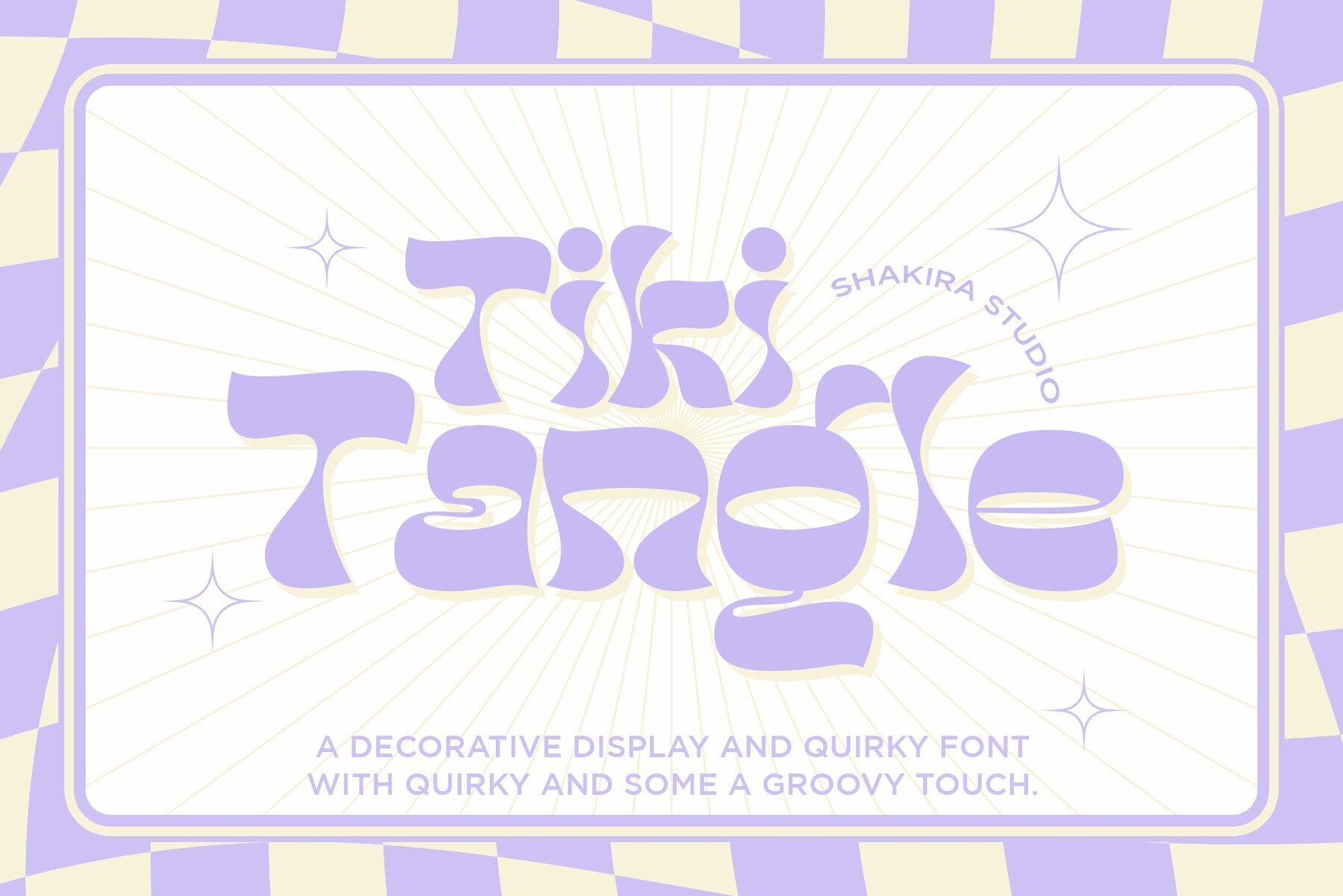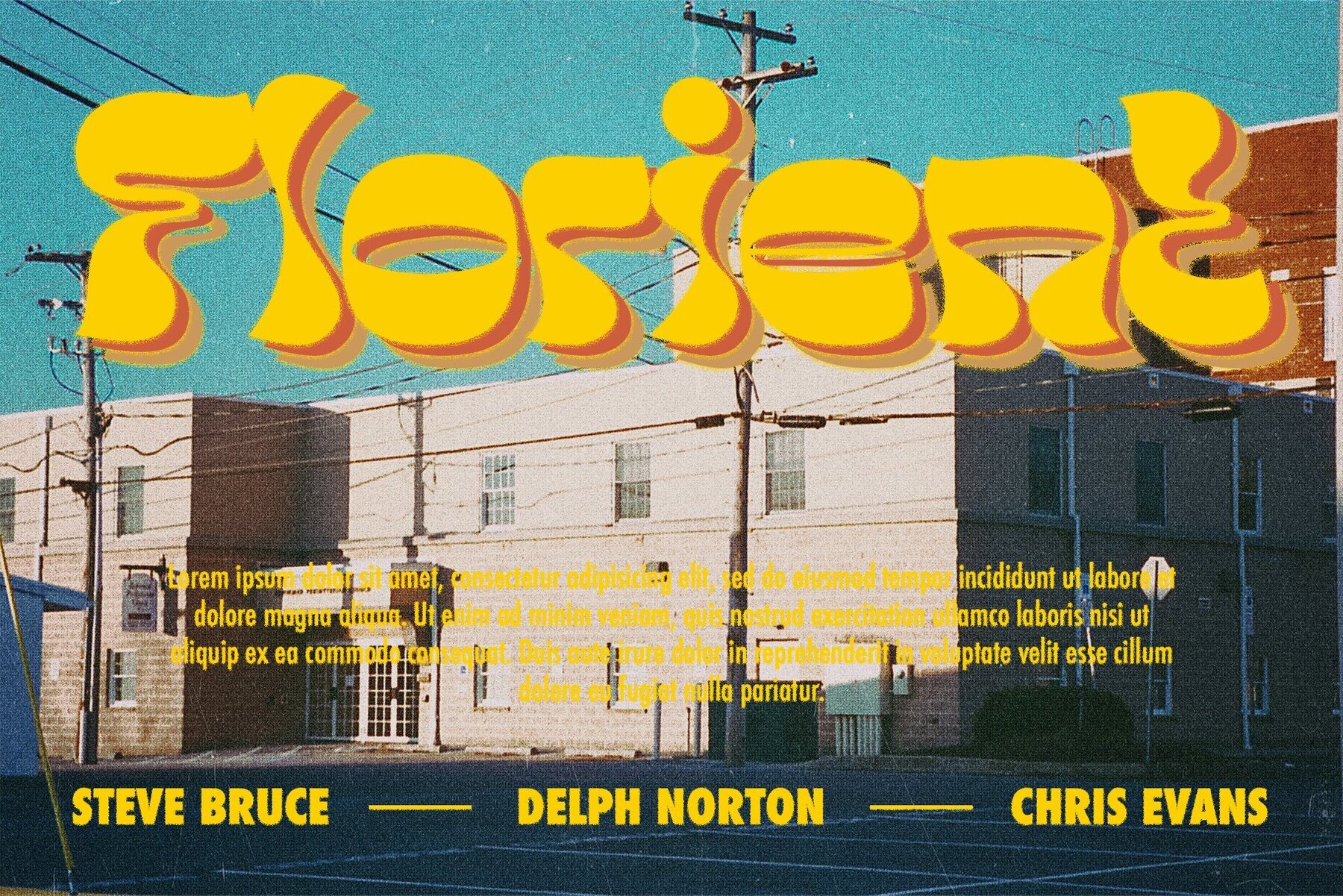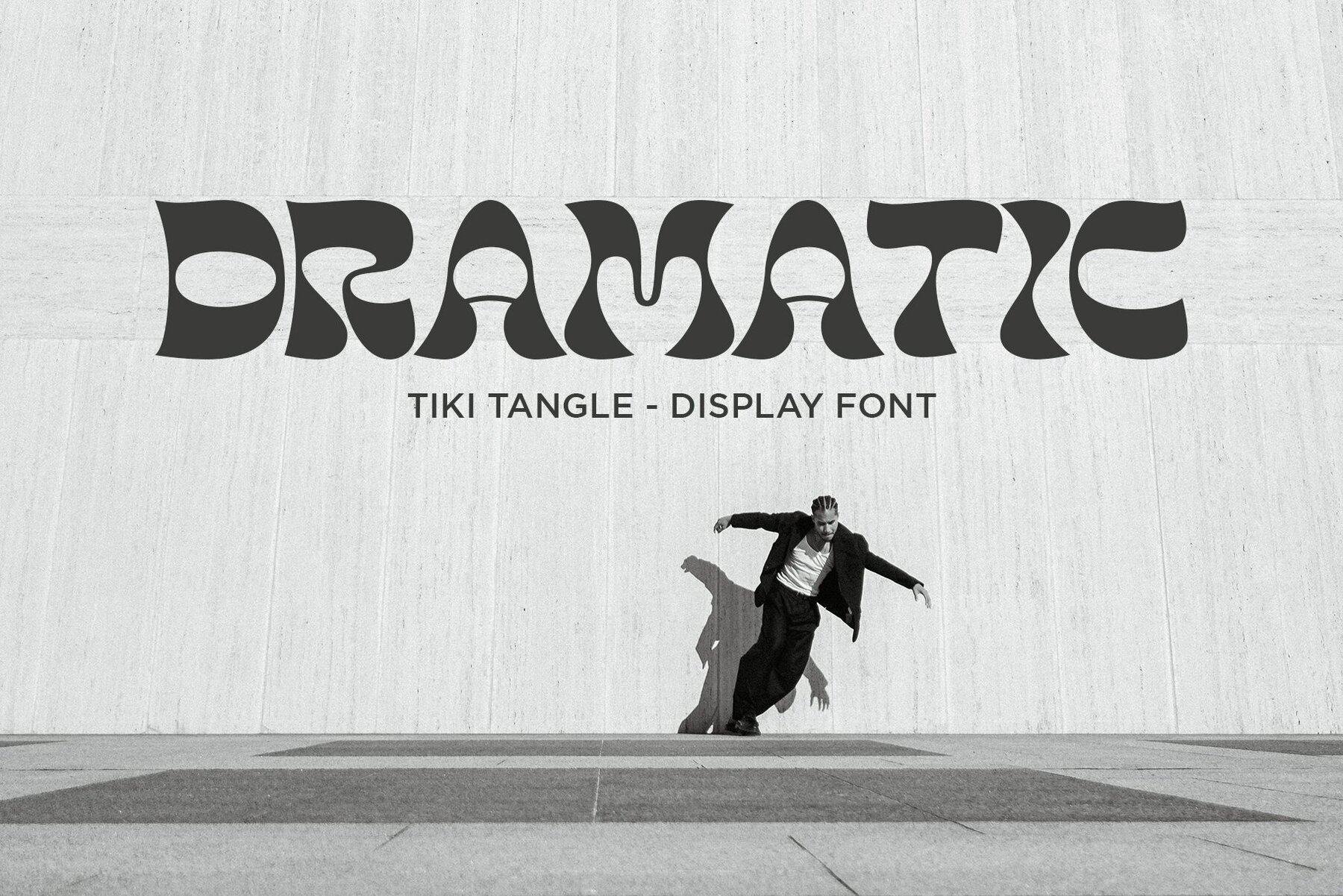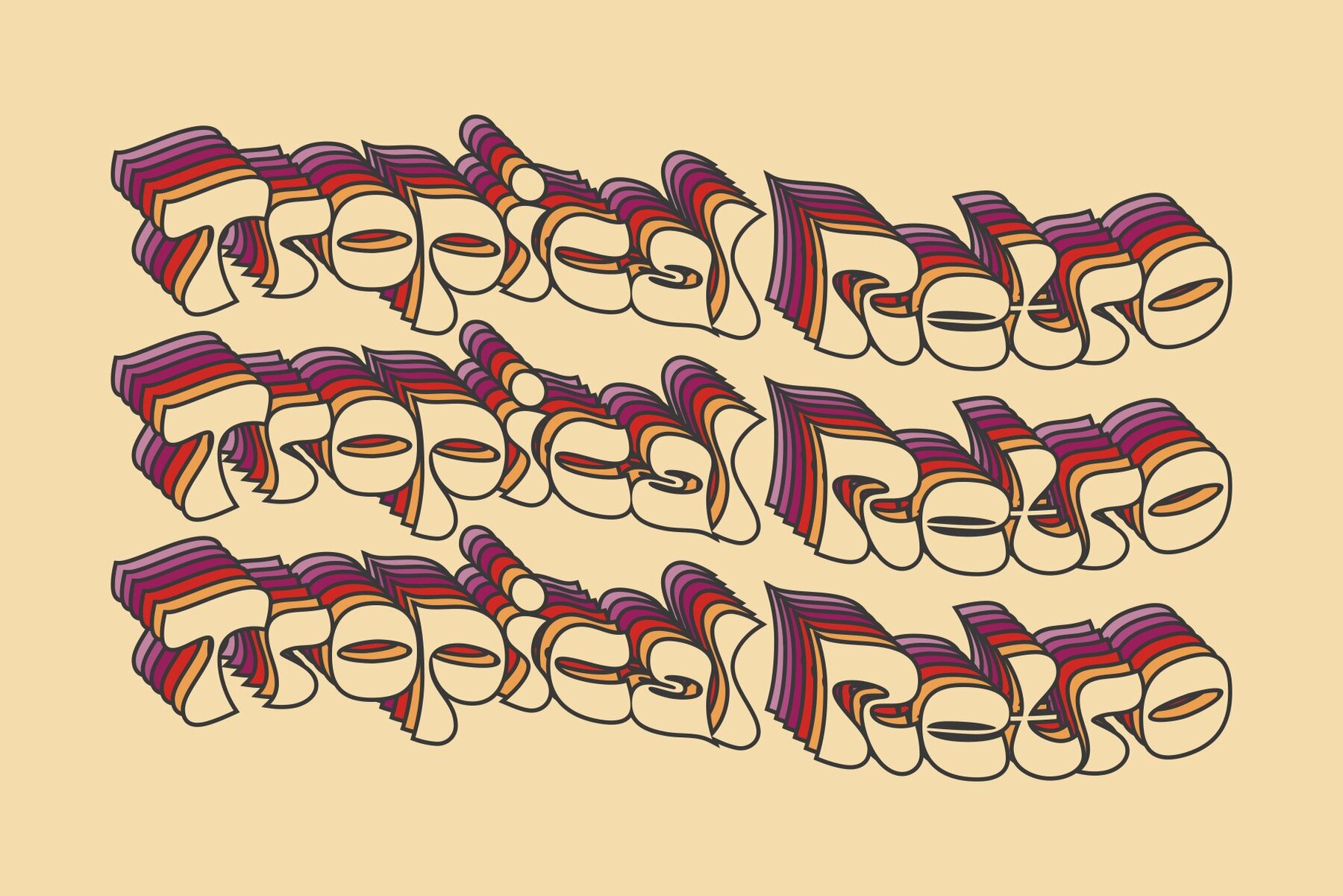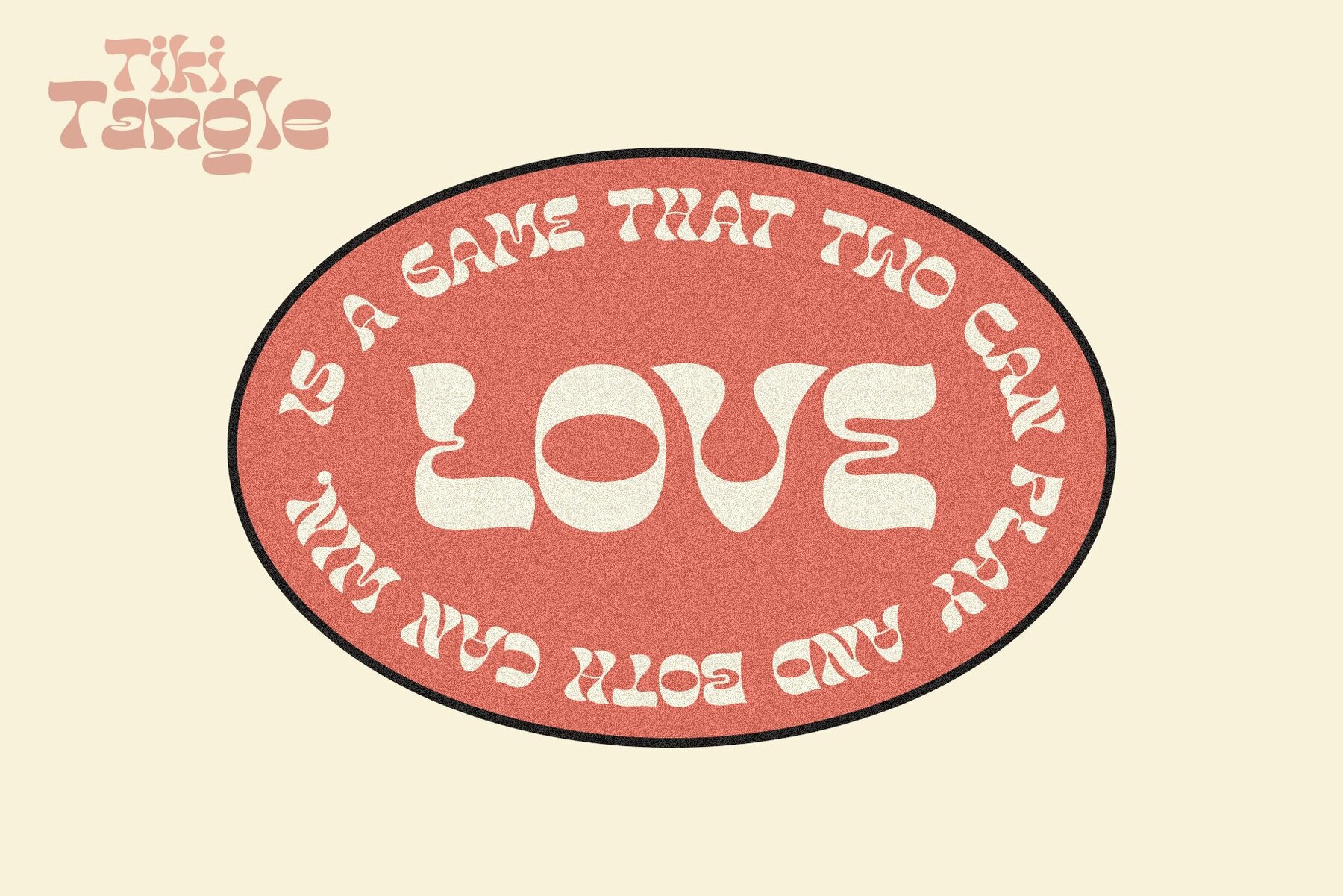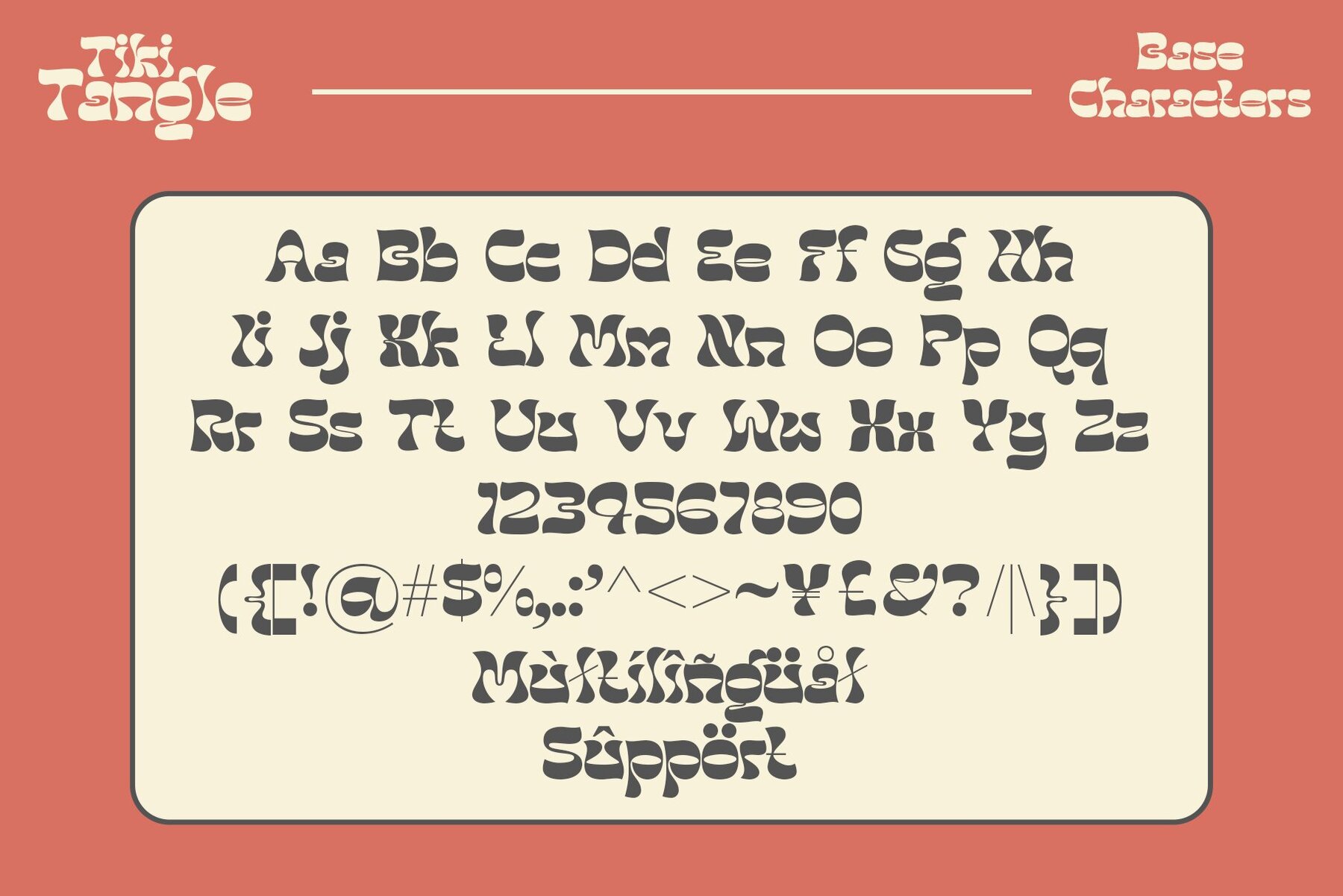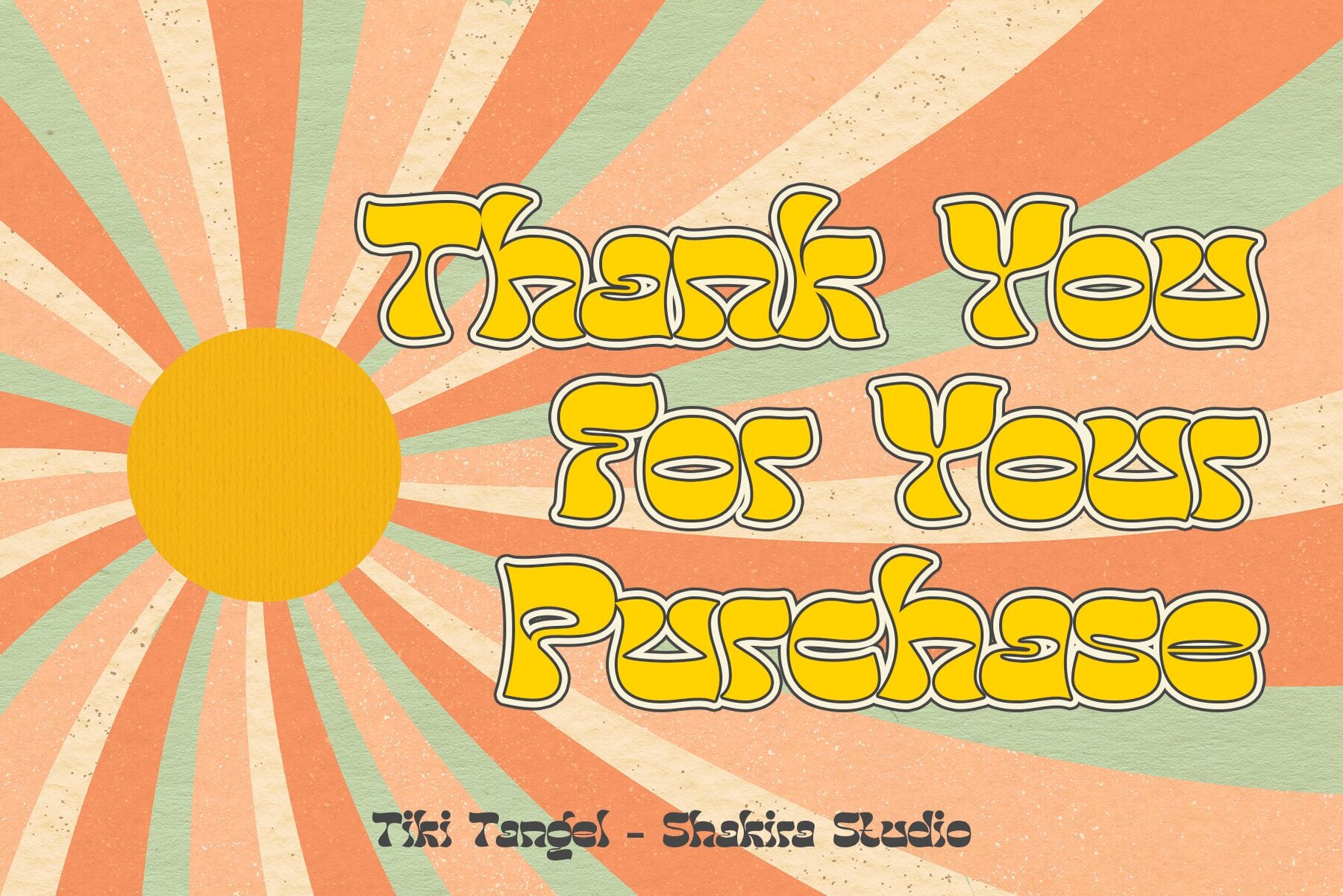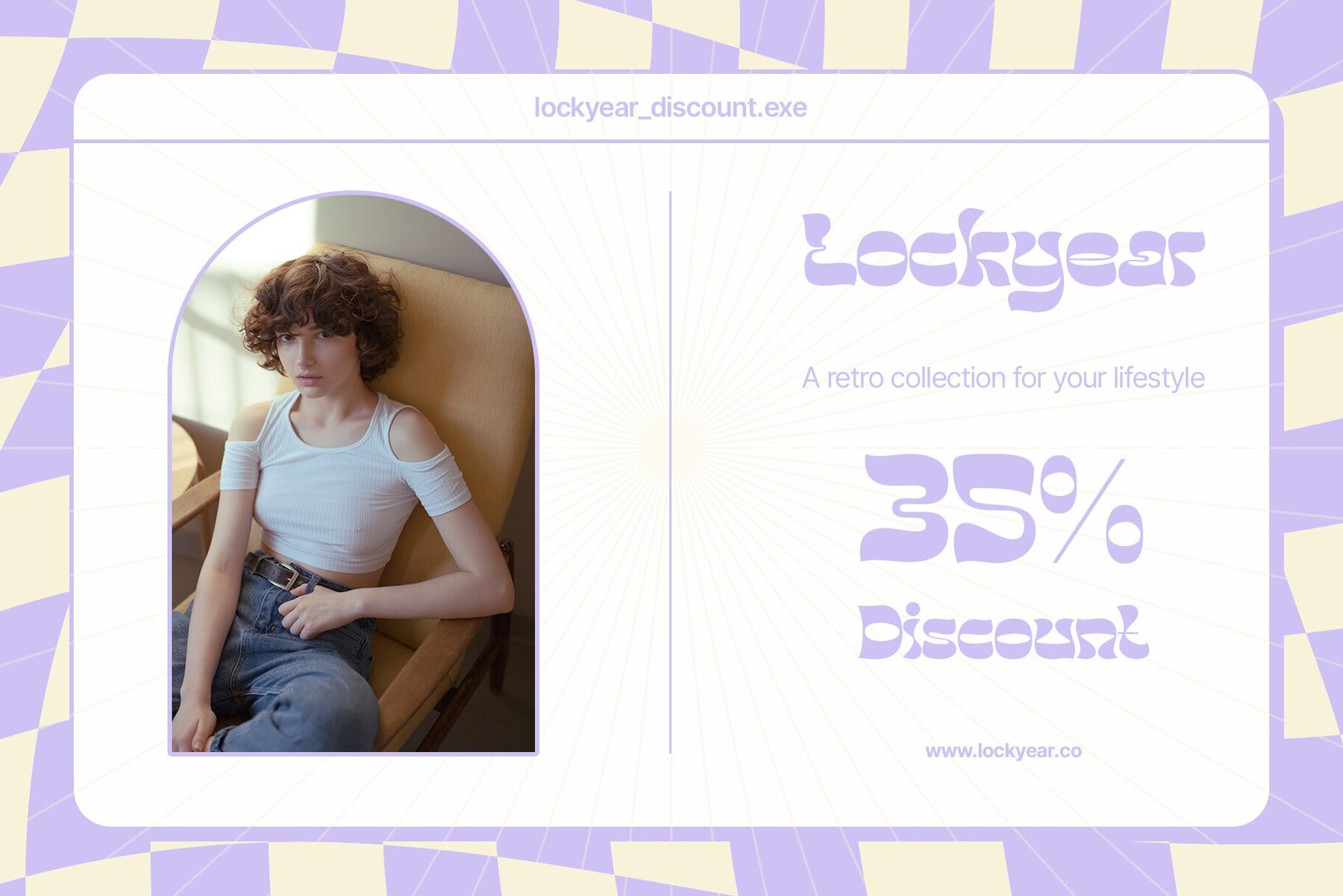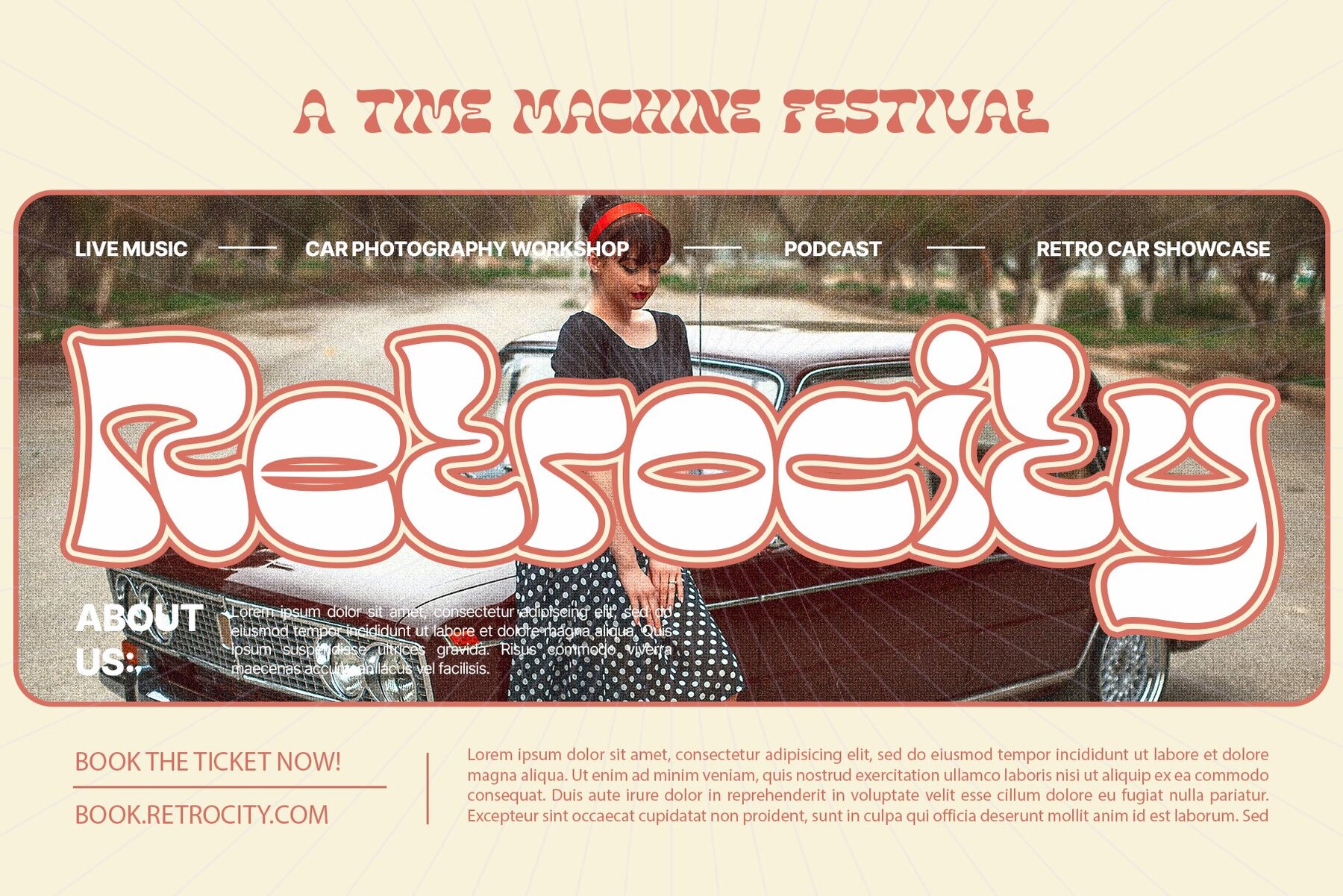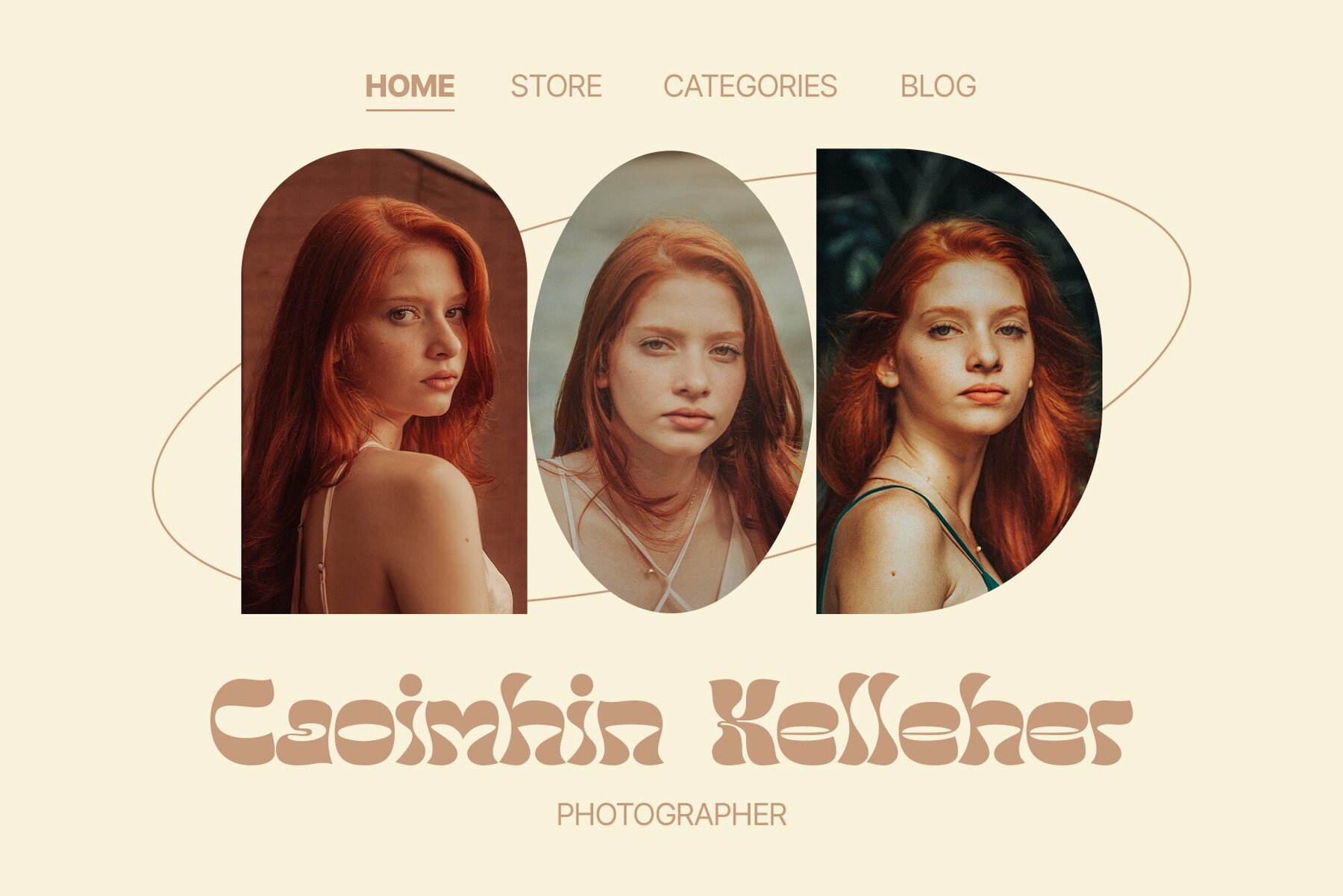
Tiki Tangle Font
Tiki Tangle Regular
Tiki Tangle Italic
Introducing Tiki Tangle - A Decorative and Classic Font Full of Retro Fun! Tiki Tangle is the answer for designers looking for a retro touch and uniqueness in their designs. This decorative font captures the retro fun that's all the rage right now, creating a balance between nostalgic memories of the past and timeless uniqueness. Each letter in Tiki Tangle is a work of art in itself, embracing a cute and unconventional retro aesthetic. Suitable for designers who want to add a touch of uniqueness to their projects, in line with contemporary design trends. With Tiki Tangle, you have the creative freedom to turn your designs into eye-catching works of art. Whether you're designing a classic poster, eye-catching product labels, or unique social media graphics.